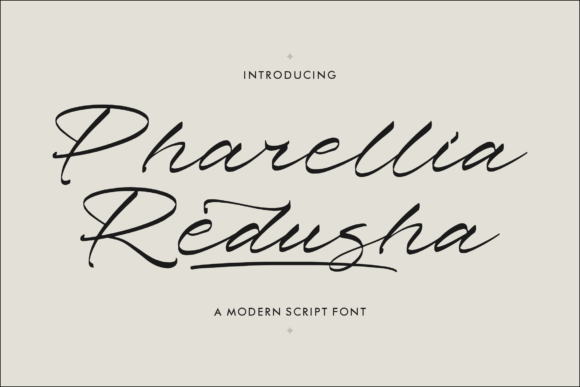
Journey into the world of Pharellia Redusha, where elegance and luxury intertwine. This script font, designed by the esteemed Storytype Studio, is not merely a collection of letters; it's an invitation to explore a realm where sophistication and style reign supreme. Each stroke, each curve, each carefully crafted detail whispers of grandeur, inviting you to create captivating designs that leave an indelible mark.
Fashion enthusiasts, let Pharellia Redusha be your muse. Its inherent charm effortlessly elevates any design, adding a touch of allure that captures attention and ignites desire. Whether it's a clothing line that exudes luxury or a fashion magazine that oozes glamour, Pharellia Redusha is your perfect companion. It's the font that transforms ordinary words into fashion statements, captivating your audience with its allure.
Authors and storytellers, discover the magic of Pharellia Redusha. Its gracefully flowing lines bring an air of elegance to book covers, adding depth and intrigue to your literary creations. Whether it's a historical novel set in a bygone era or a contemporary tale of love and loss, Pharellia Redusha lends its timeless beauty to your words, drawing readers into your enchanting worlds.
Designers, rejoice in the versatility of Pharellia Redusha. Its effortless adaptability makes it the perfect choice for a myriad of projects. From sleek logos that command attention to eye-catching posters that demand admiration, Pharellia Redusha effortlessly elevates your designs to new heights of sophistication. It's the font that transforms ordinary concepts into extraordinary masterpieces, leaving your audience in awe.